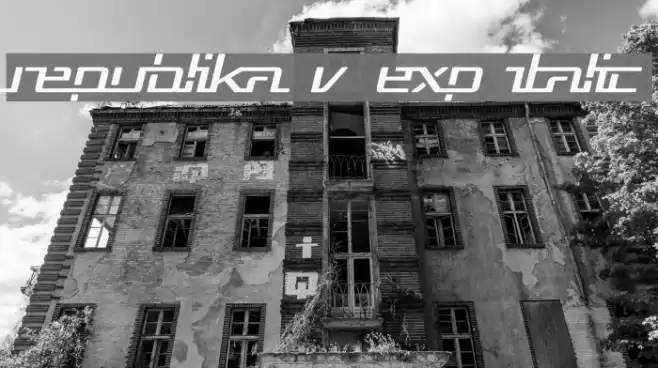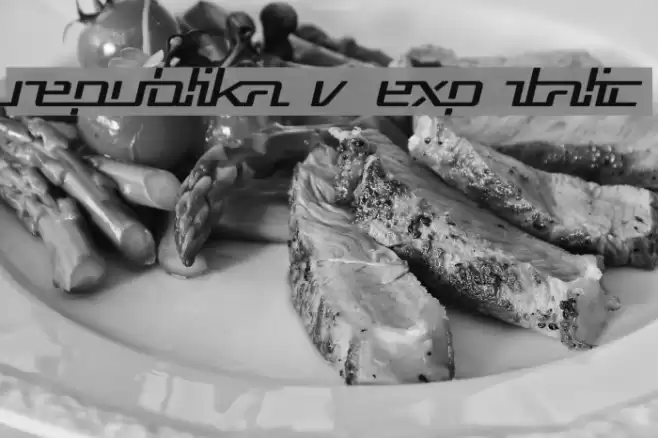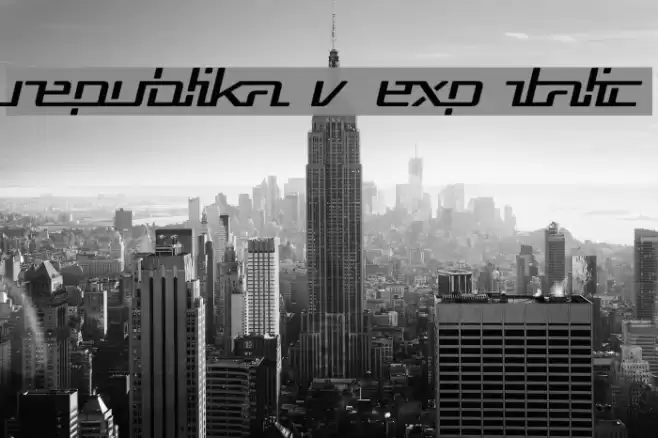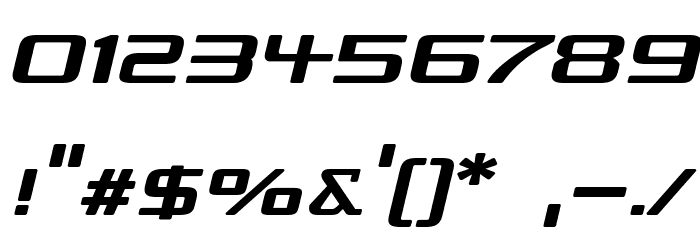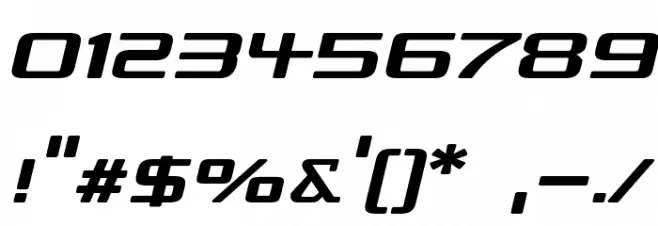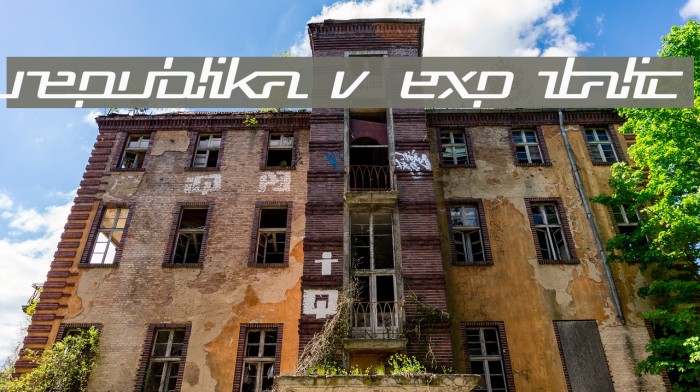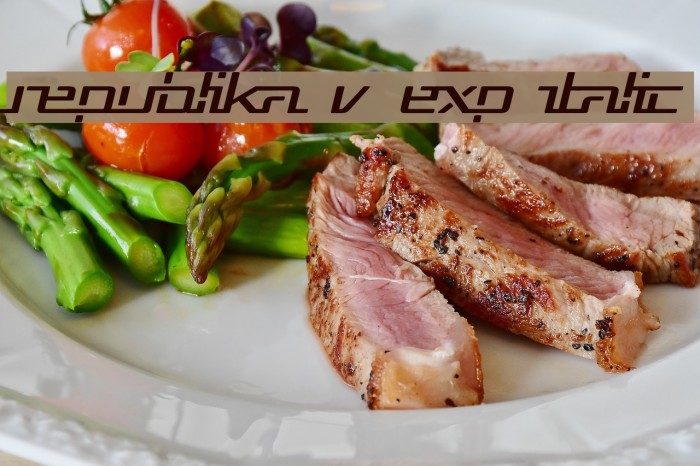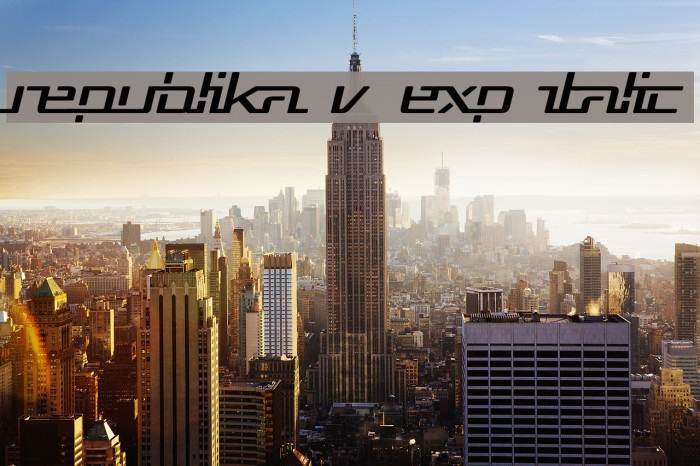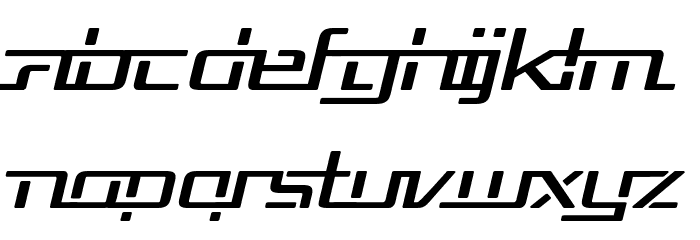
Republika V Exp Italic Font
Republika V Exp Italic Description
This font features a futuristic and sleek design with a distinctly angular and geometric style. The characters are italicized, giving a sense of motion and dynamism. The strokes are consistent in weight, providing a uniform appearance across all characters. The uppercase and lowercase letters maintain a cohesive look, with sharp edges and a modern aesthetic. The numerals and special characters are designed to match the overall style, ensuring a seamless integration in any text. The font's expanded width and tight character spacing contribute to its unique appearance, making it stand out in any design project.
A futuristic, italicized font with angular, geometric characters and a sleek design from Sci-fi fonts.
- Proposed Projects: Ideal for technology branding, sci-fi themed projects, modern posters, and innovative product packaging.
- Width: Expanded
- Character Spacing: Tight